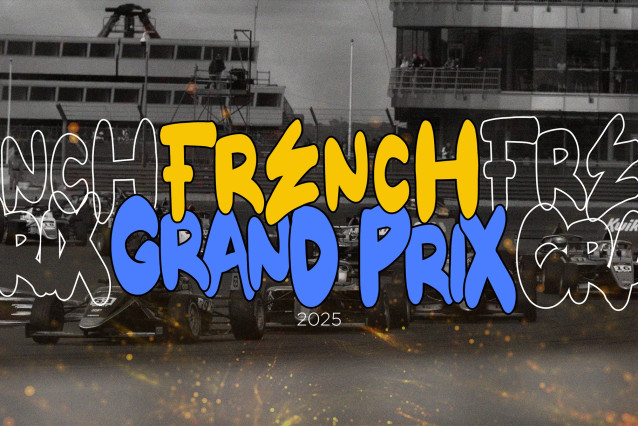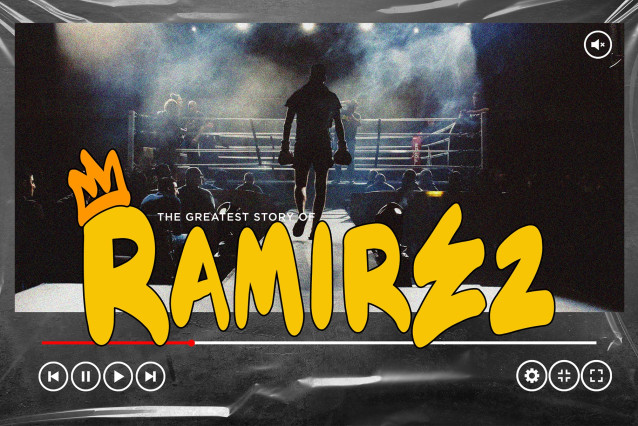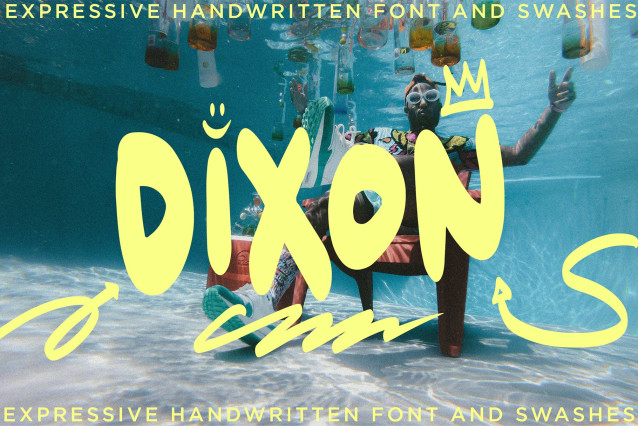
Dixon Playful Font
Dixon Playful Font is an expressive handwritten font with bold personality and organic energy. Designed with quick, confident strokes and dynamic motion, it’s perfect for creating authentic, artistic typography. Bonus swashes are included to give your designs even more flair—ideal for standout headlines, logos, and creative branding.